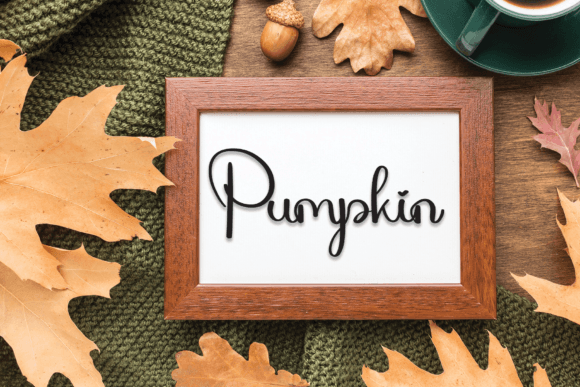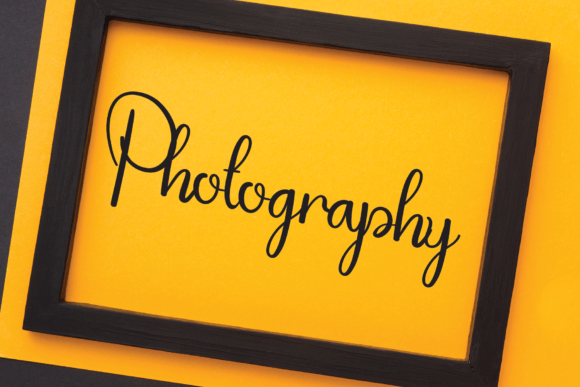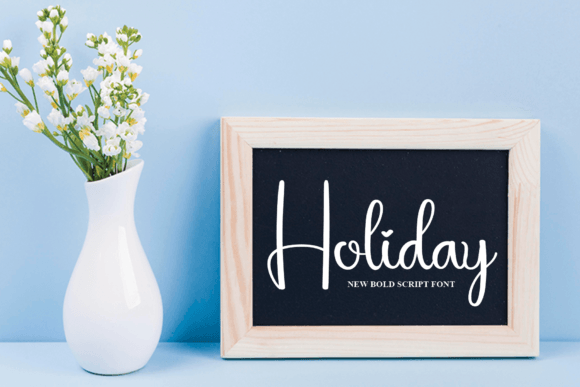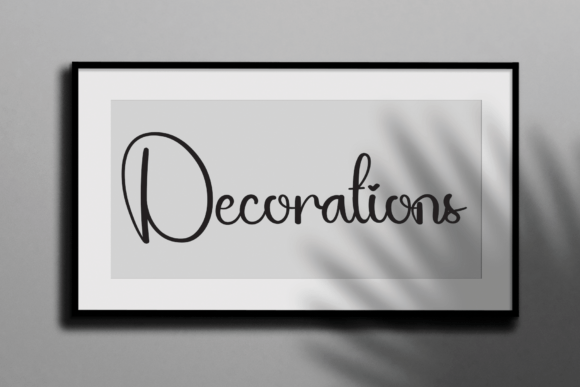
Discover the Delightful Blackout Font: Elevate Your Designs with a Personal Touch
Are you on the hunt for a font that adds a dash of personality to your projects? Look no further than the charming Blackout Font. This fun and friendly handwritten font is making waves in the design community, and for good reason. Whether you’re a seasoned designer, a crafty DIY enthusiast, or someone who loves creating digital content, the Blackout Font has the potential to become your go-to choice for all your design needs.
What Makes Blackout Font So Special?
At its core, the Blackout Font is a handwritten font that exudes warmth and friendliness. Its unique charm lies in its casual, approachable vibe, which makes it perfect for a wide range of applications. From crafting beautiful greeting cards to designing engaging presentations, this font brings a personal touch that’s hard to replicate with more formal fonts.
One of the standout features of the Blackout Font is its incredible versatility. Here are just a few ways you can use this fantastic font:
- Crafts: Add a personal touch to your DIY projects, such as scrapbooking, journaling, and handmade cards.
- Digital Design: Use it in your social media graphics, blog posts, and website headers to give your content a friendly and approachable feel.
- Presentations: Elevate your slides with a font that’s engaging and easy to read, making your presentations more impactful.
- Greeting Cards: Create beautiful, heartfelt cards for any occasion, from birthdays to holidays.
Why Designers and Crafters Love Blackout Font
Designers and crafters alike are drawn to the Blackout Font for several reasons:
- Easy to Read: Despite its playful nature, the Blackout Font is surprisingly easy to read, making it suitable for both digital and print projects.
- Highly Customizable: Experiment with different sizes, colors, and styles to match your project’s unique needs.
- Unique Personality: Stand out from the crowd with a font that adds a dash of personality to your work.
Tips for Using Blackout Font Effectively
To make the most of the Blackout Font, consider the following tips:
- Mix and Match: Combine the Blackout Font with other fonts to create visual interest and hierarchy in your designs.
- Play with Colors: Don’t be afraid to experiment with different colors to match your brand or project theme.
- Keep it Simple: While the Blackout Font is perfect for adding personality, ensure your design doesn’t become too cluttered.
The Blackout Font is more than just a font – it’s a design companion that can elevate your projects and add a personal touch. Whether you’re a designer looking for a unique font for your next project or a crafter seeking to add some personality to your DIY endeavors, the Blackout Font is an excellent choice. Its versatility, readability, and charm make it a valuable addition to any designer’s or crafter’s toolkit.
So why wait? Dive into the world of Blackout Font today and discover how this fun and friendly handwritten font can transform your designs and crafts into something truly special.